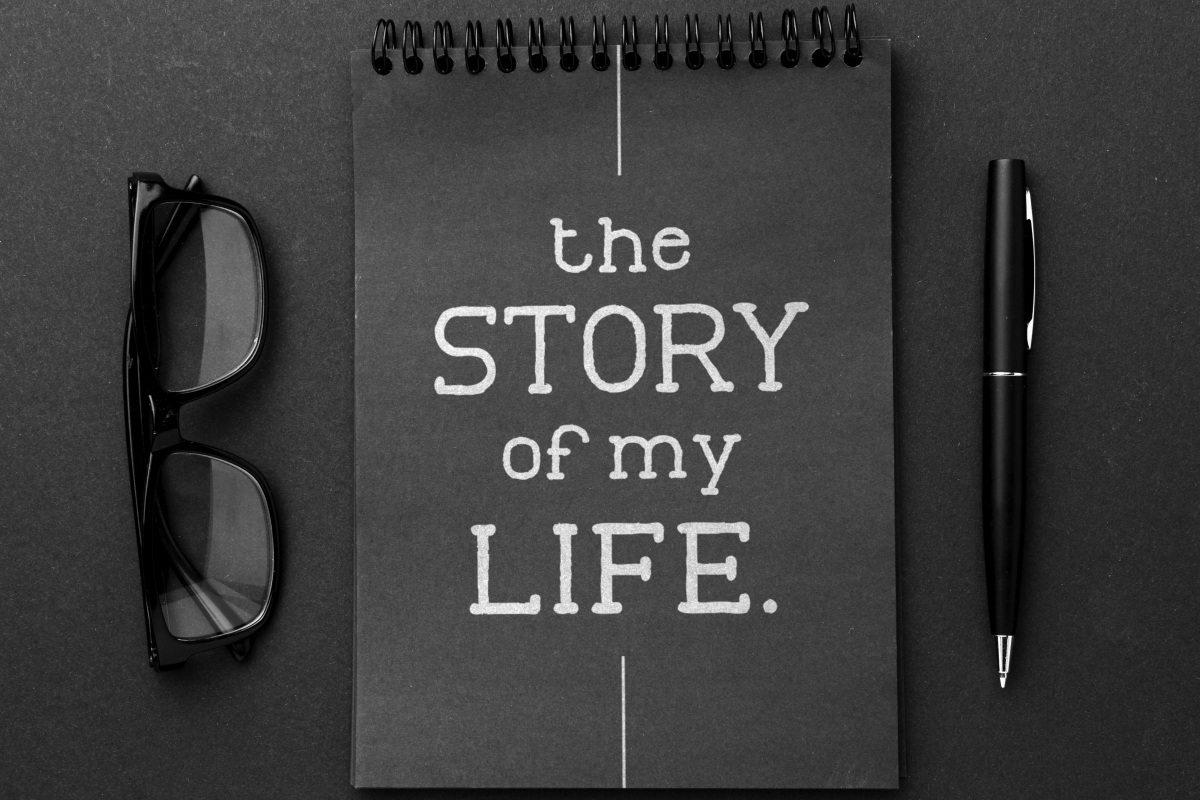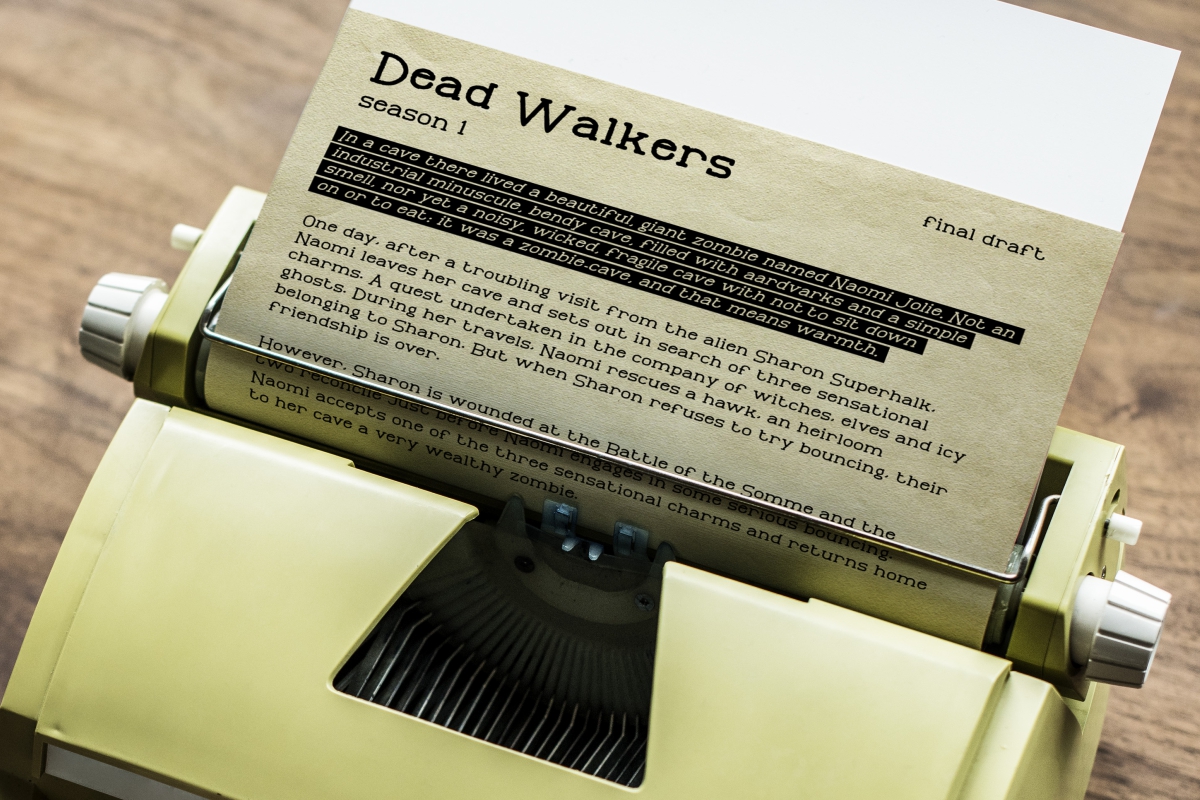
Typewriterz Display Font
This is an awesome typewriter font. It has a great vintage touch while still has good readability. This unique typewriter font design, great for mimicking the effect of type writing older machines. It comes with three styles regular, italic and bold. The font will be great for any project in between are : fashion, book story, novel, games, quotes, brands, movies, and many more!